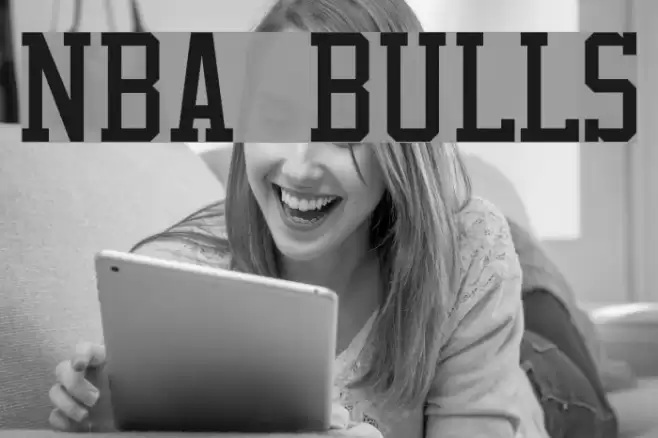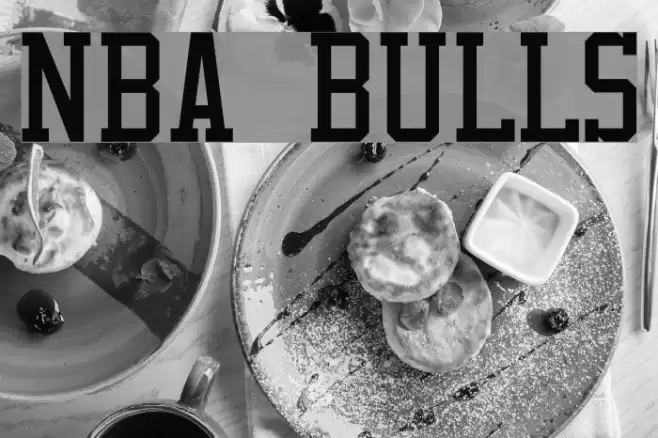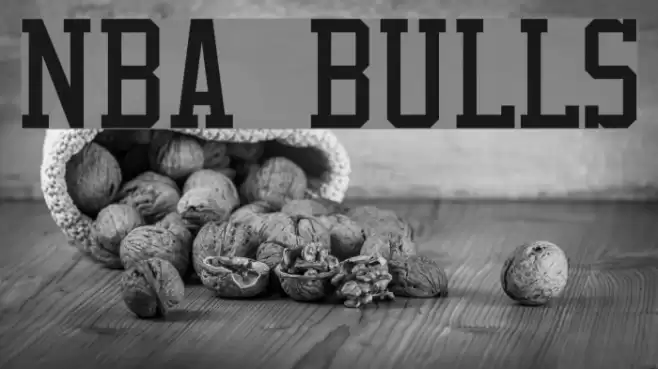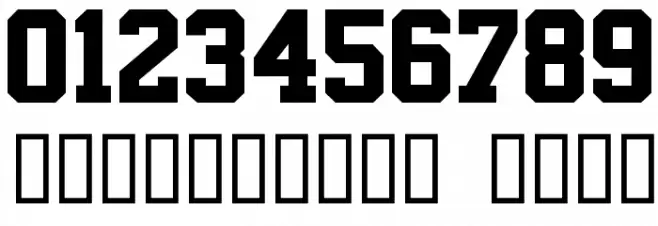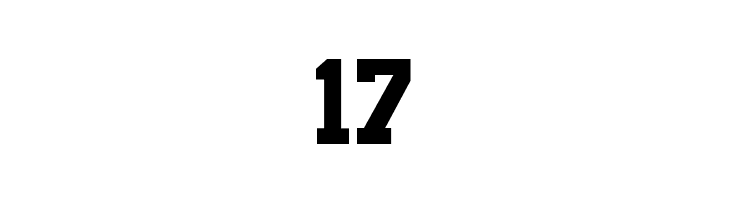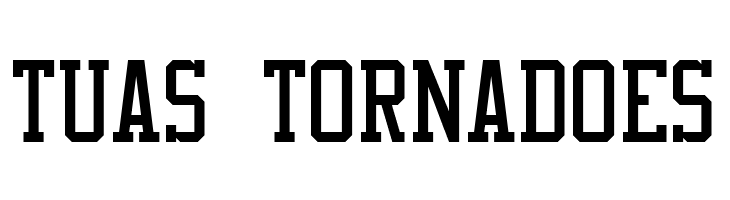
NBA Bulls Font
NBA Bulls Description
This font features a bold, athletic style with strong, block-like characters that convey a sense of power and confidence. The uppercase letters are prominent and robust, with sharp edges and a uniform height that enhances readability. The numbers are equally bold, maintaining the same blocky aesthetic, which makes them ideal for sports-related designs. The overall design is reminiscent of classic sports jerseys, making it perfect for conveying a sense of team spirit and energy. The font lacks lowercase letters and special characters, focusing instead on delivering a straightforward, impactful visual message.